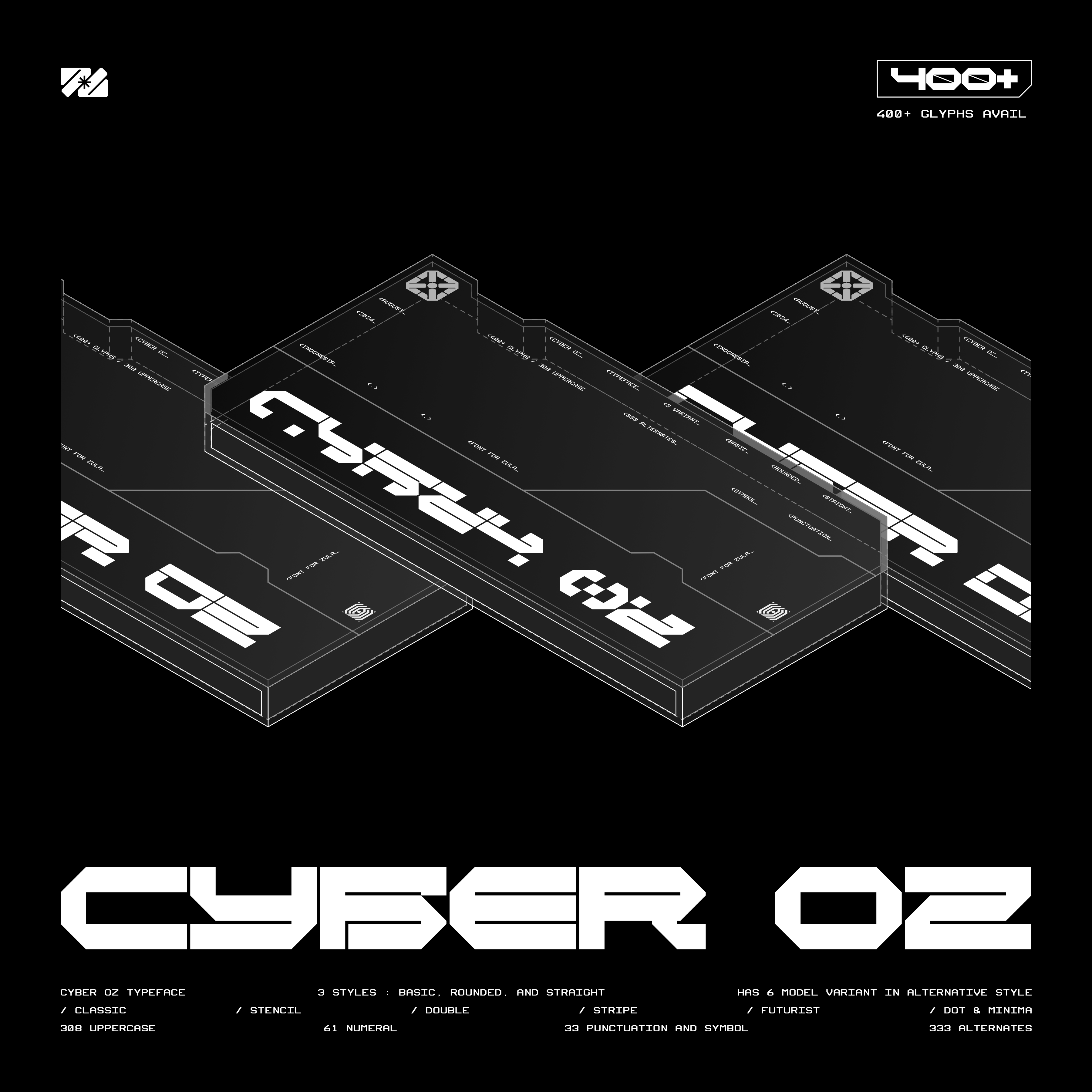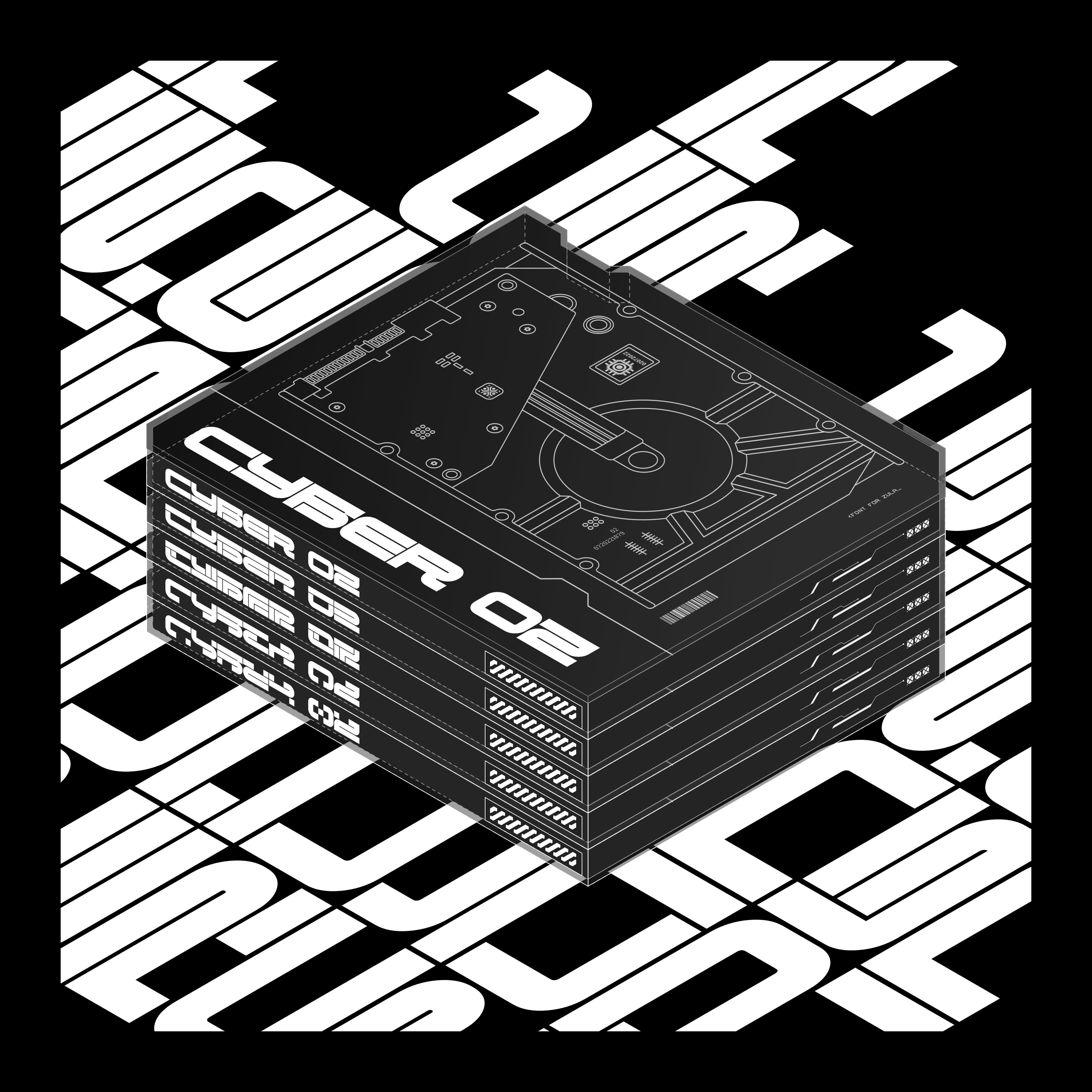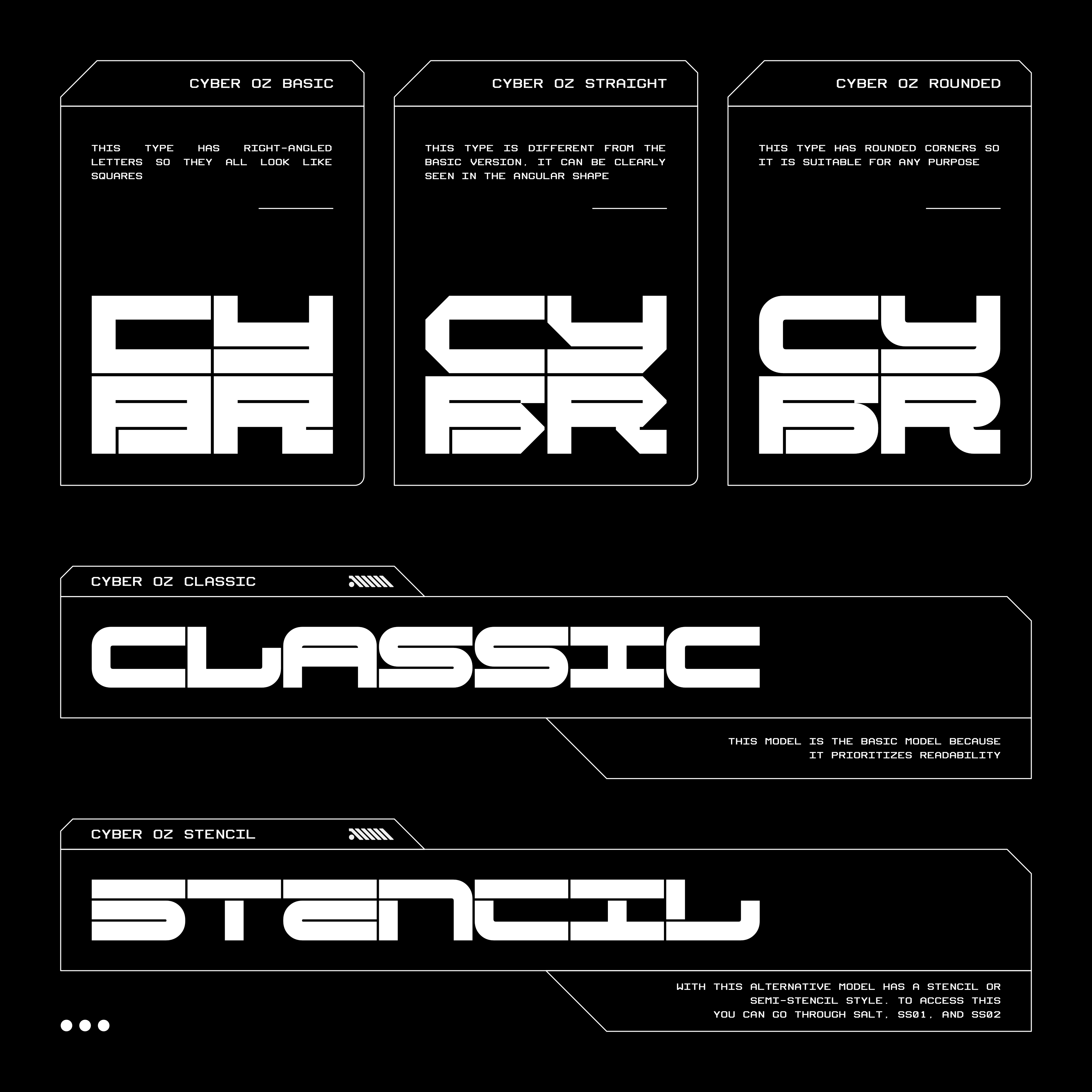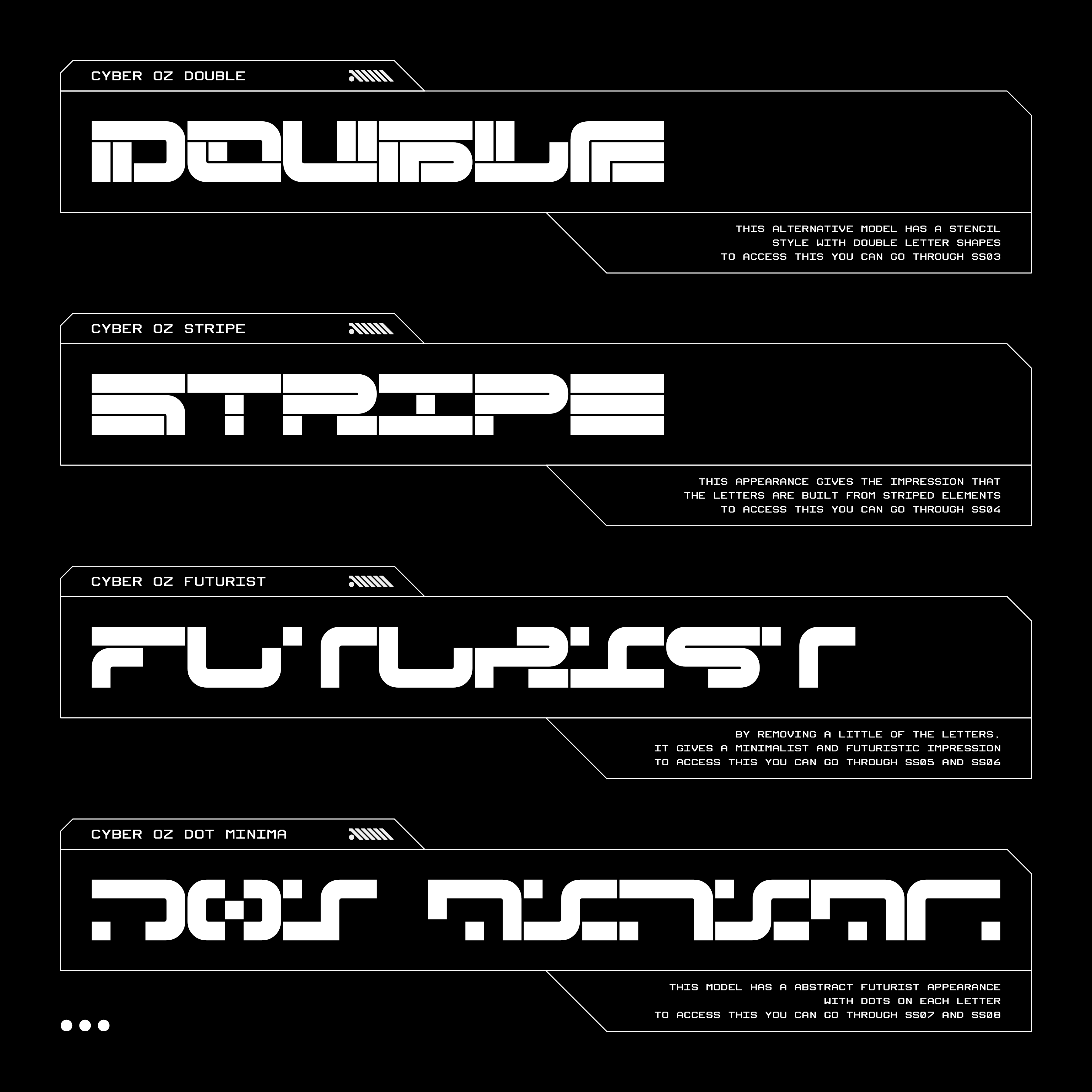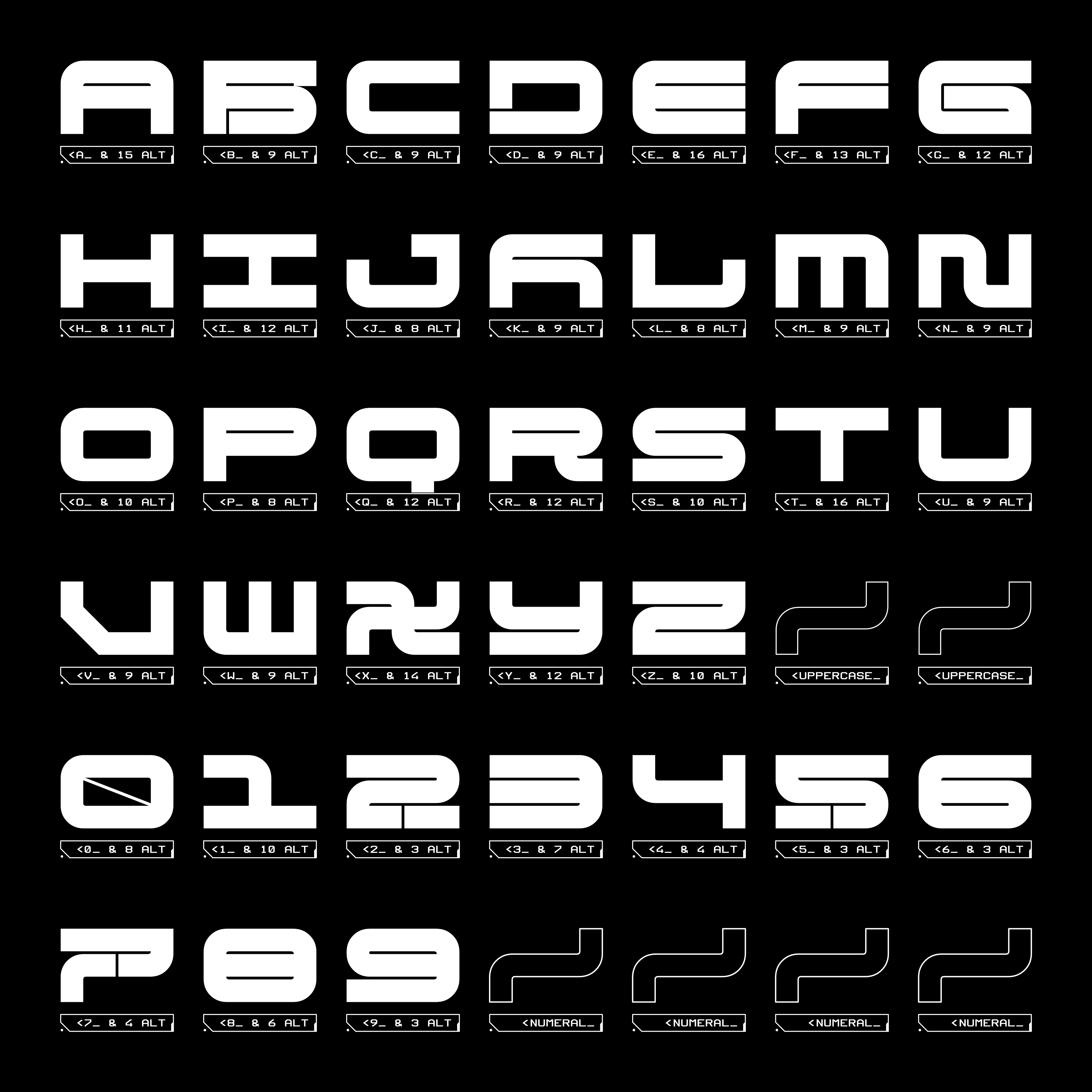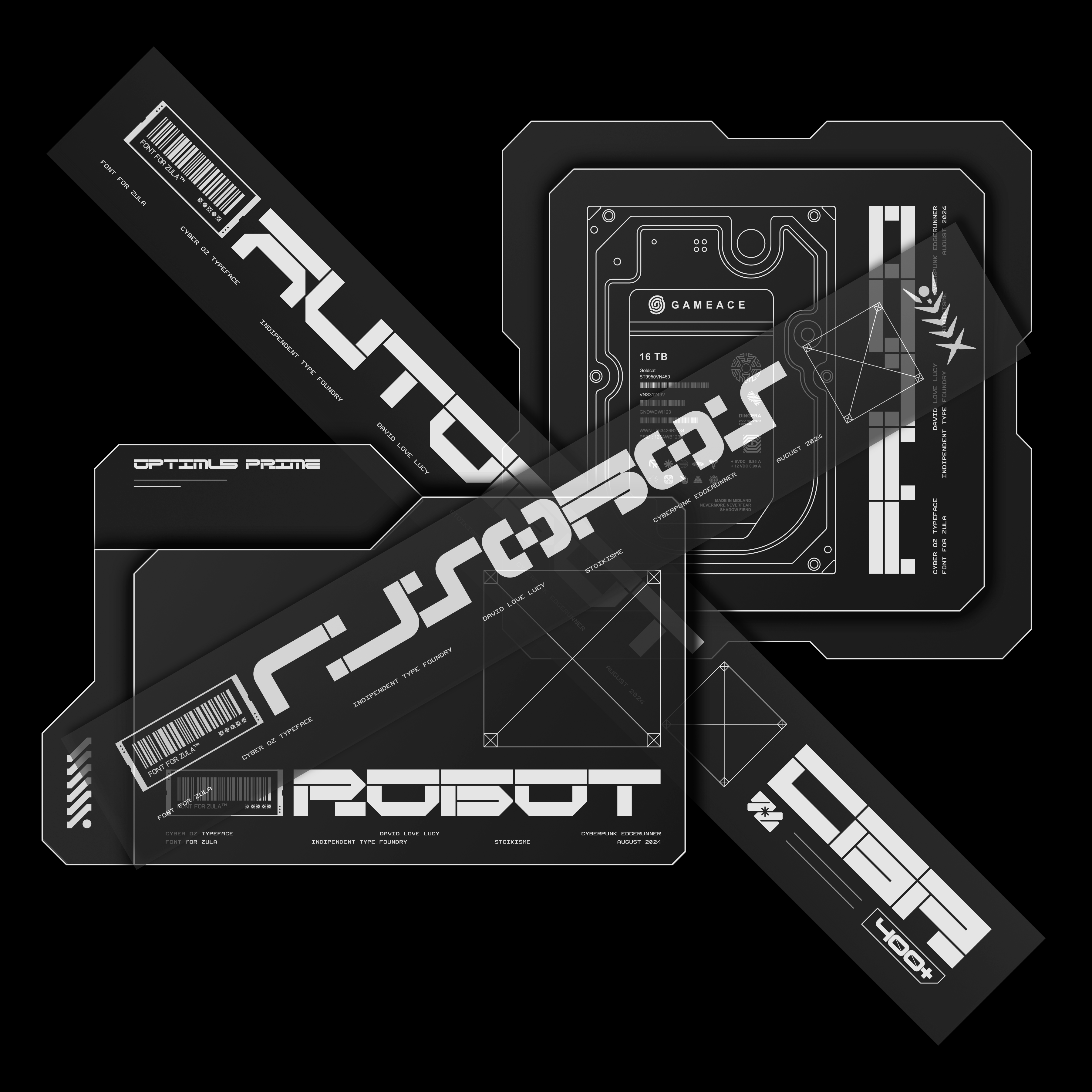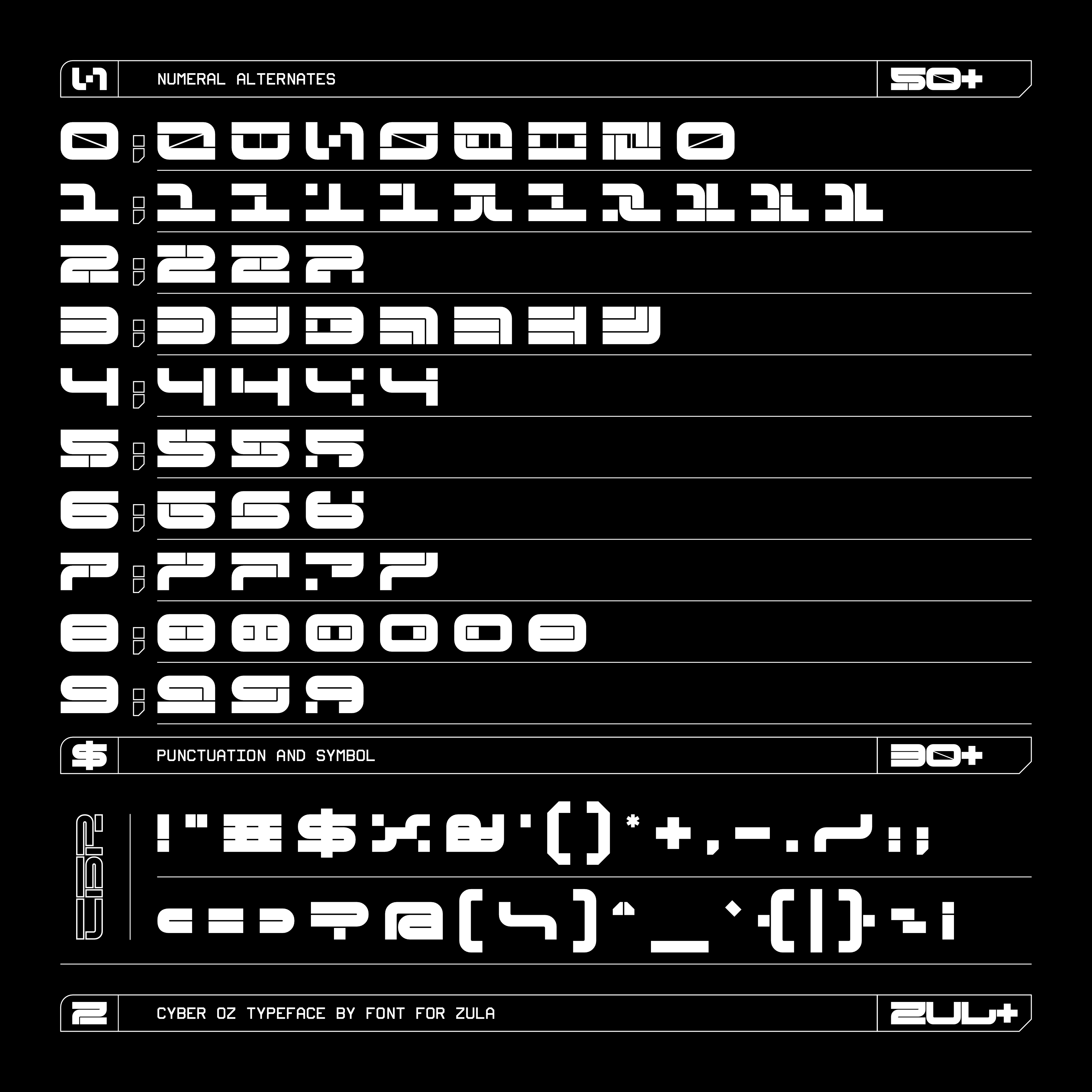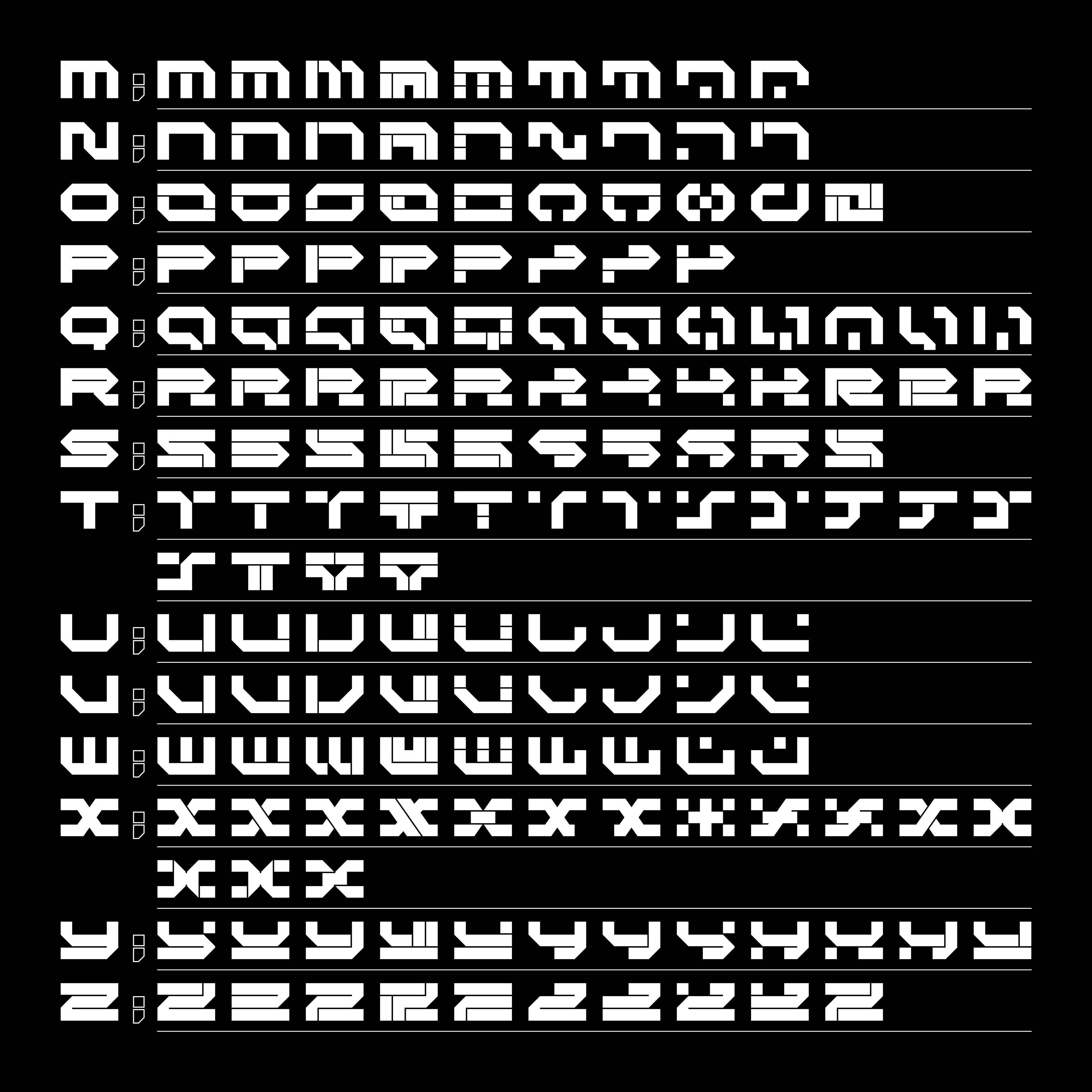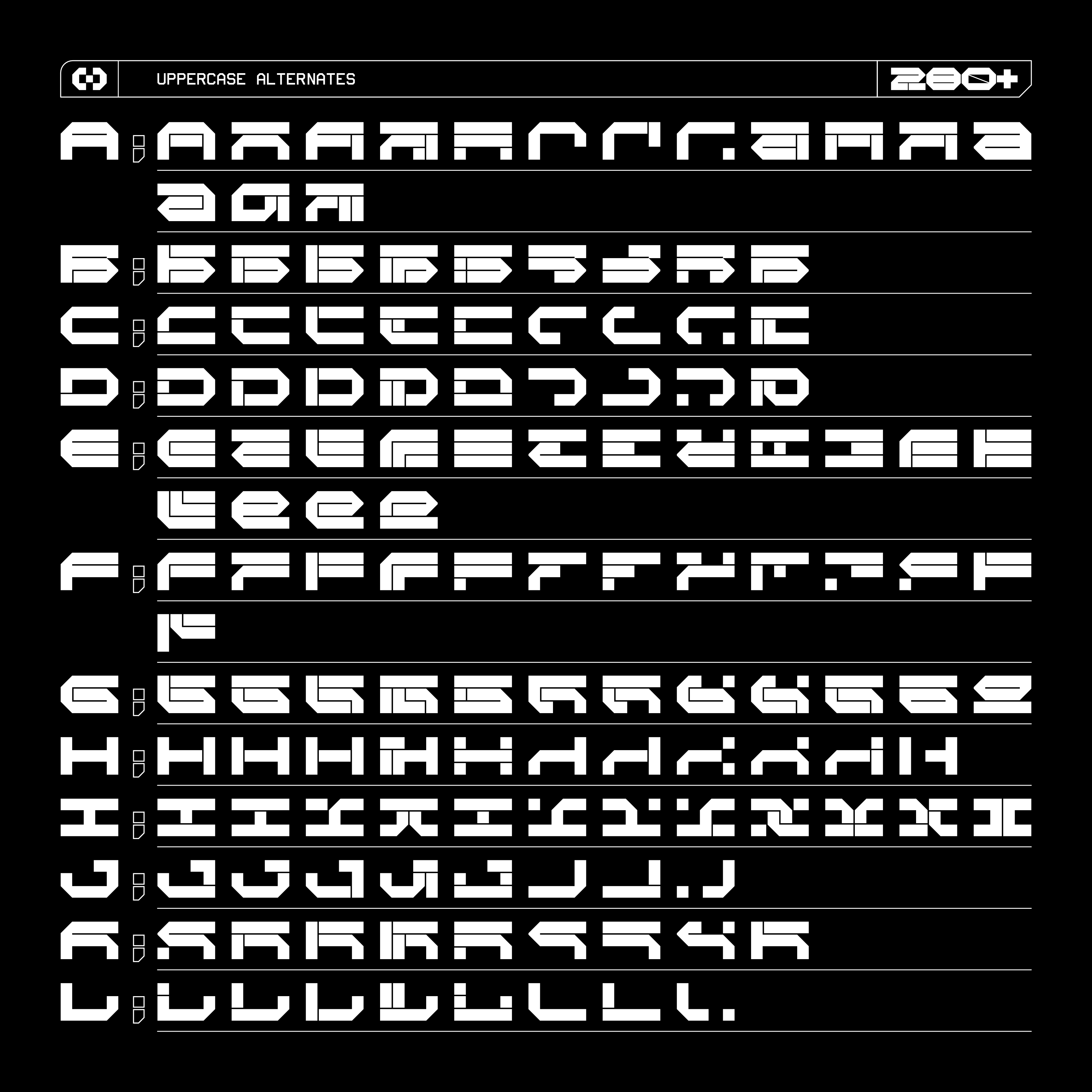
CYBER OZ STRAIGHT Typeface
Introducing CYBER OZ STRAIGHT typeface, a font with a futuristic appearance with many features and models that make it suitable for various purposes and projects. Cyber OZ has more than 400 glyphs, 282 alternative Uppercases, and 51 alternative Numerals. Among the many alternatives, Cyber OZ has many looks, such as Classic, Stencil, Double, Stripe, Futurist and Minimalist. These many features make you free to explore and experiment with this font in your projects.